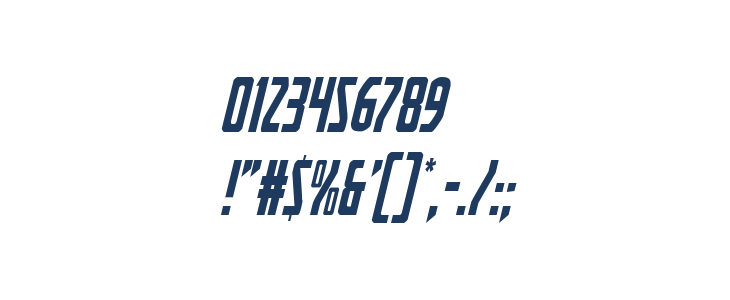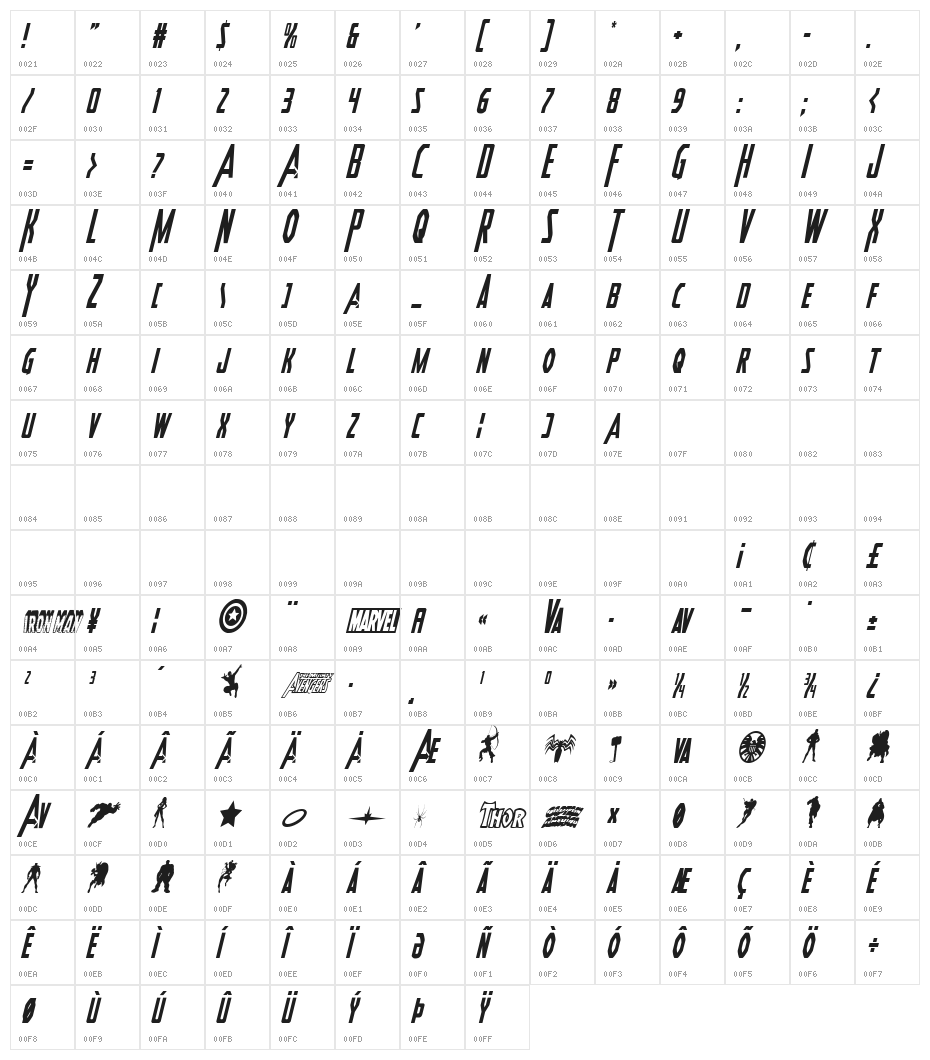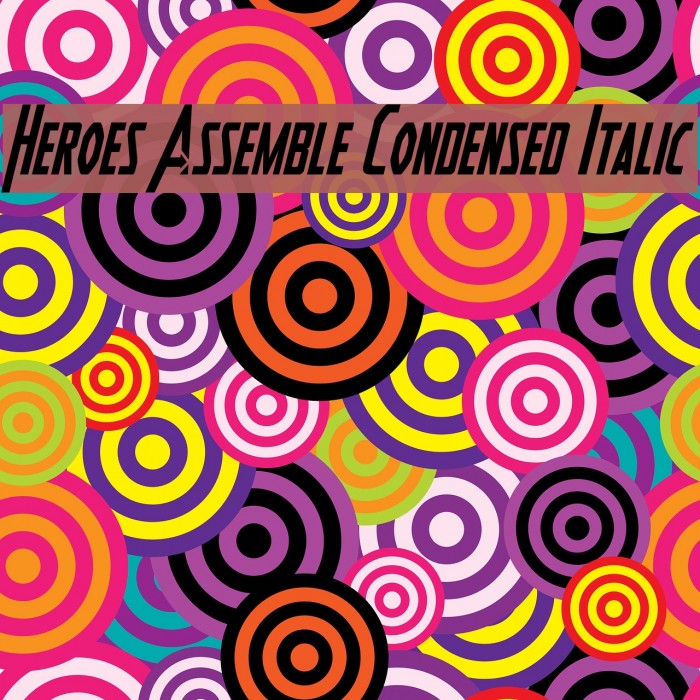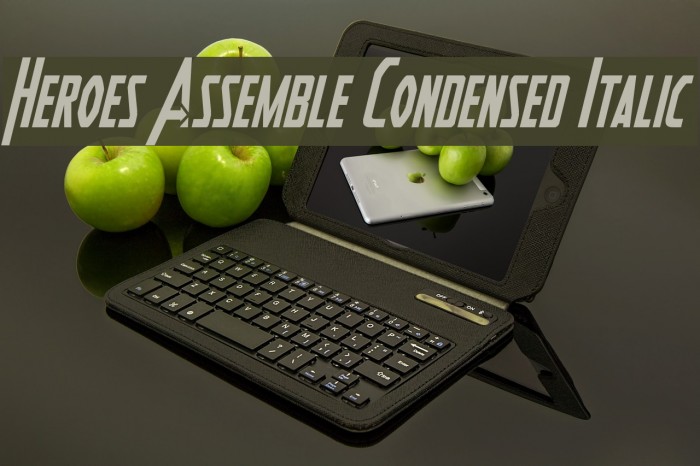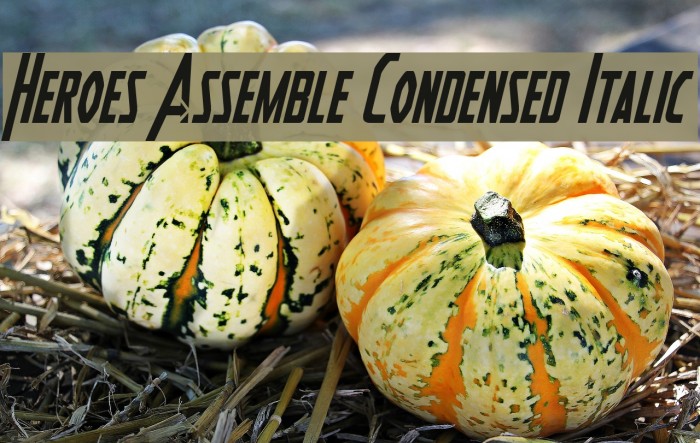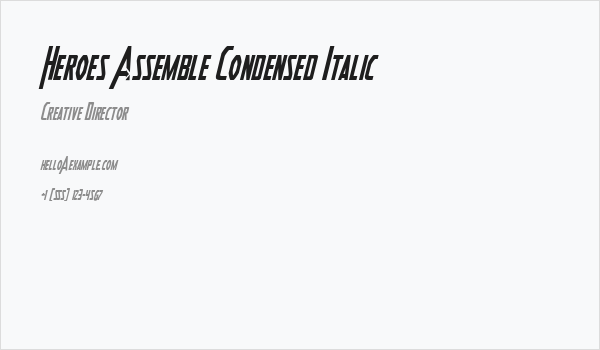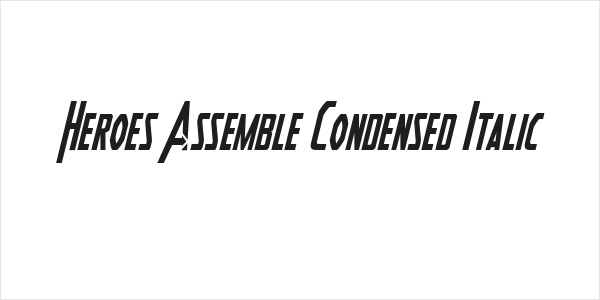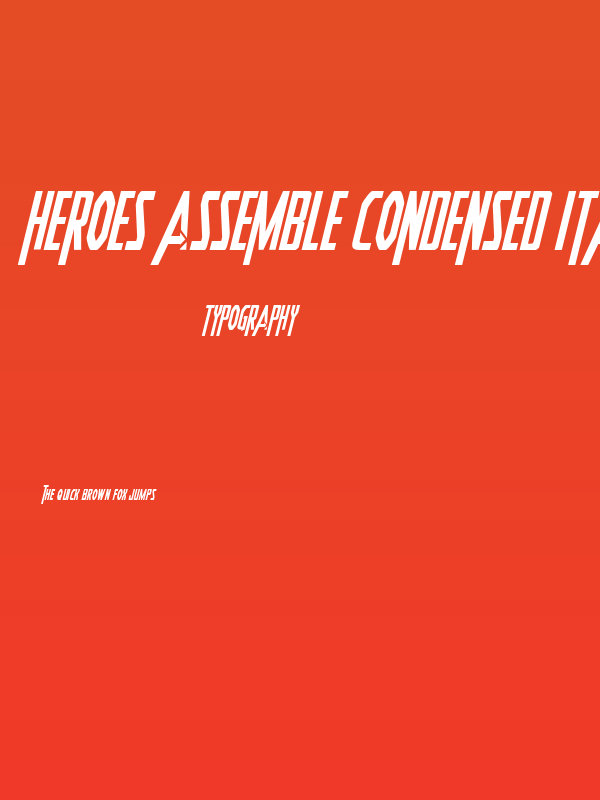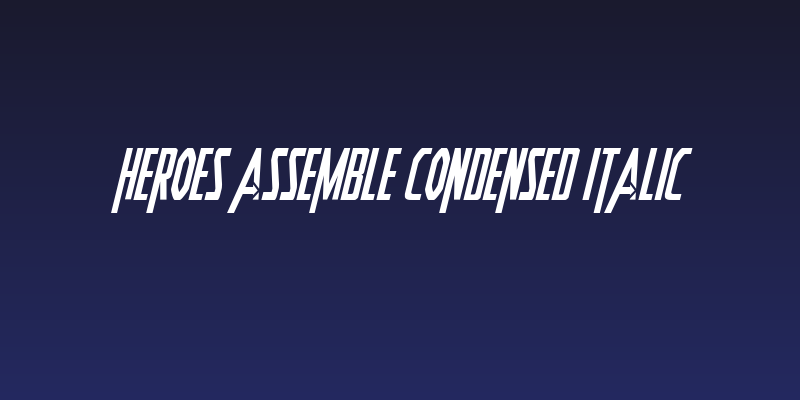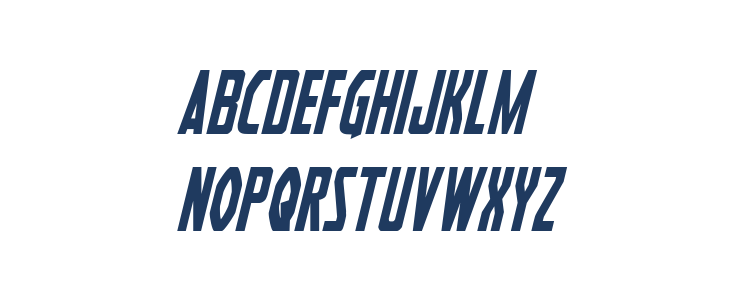
Heroes Assemble Condensed Italic Font
Heroes Assemble Condensed Italic Description
This font features a bold and dynamic design with a strong italic slant, giving it a sense of motion and energy. The characters are condensed, which enhances its compact and impactful appearance. The strokes are thick and consistent, providing a uniform look across all characters. The angular and sharp edges contribute to a modern and futuristic style, making it suitable for attention-grabbing headlines and titles. The font includes a full set of uppercase and lowercase letters, numbers, and a variety of special characters, ensuring versatility in design applications.
| Proposed Projects | Ideal for superhero-themed posters, action movie titles, comic book covers, and dynamic branding projects. |